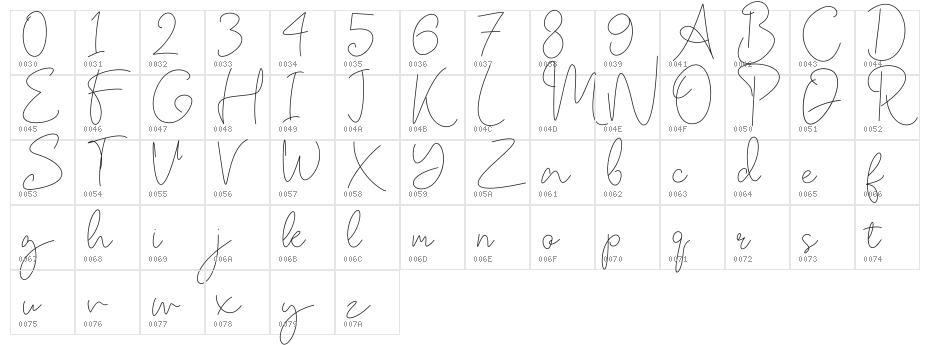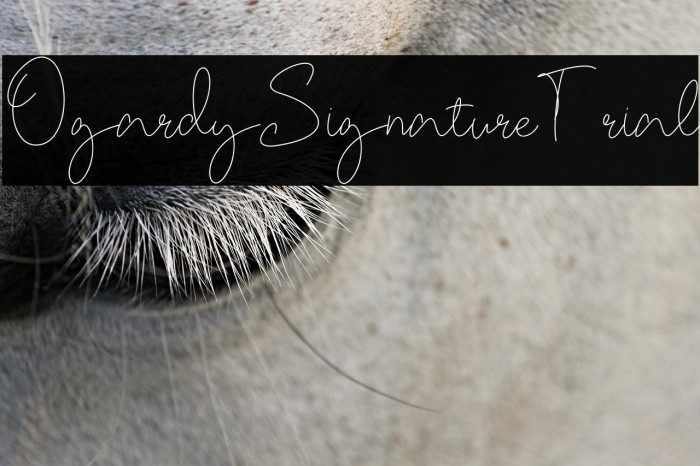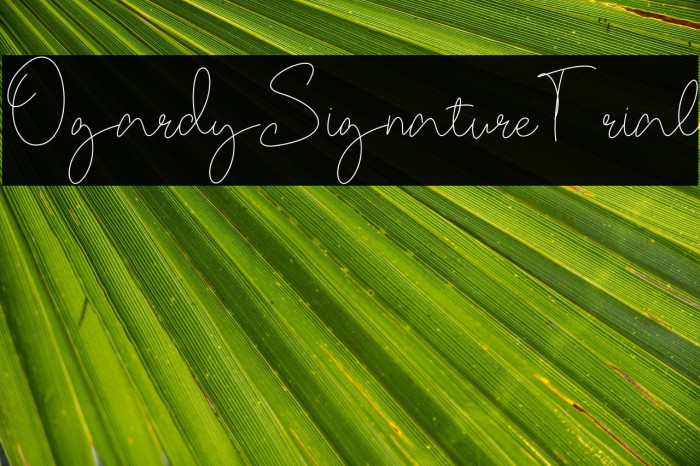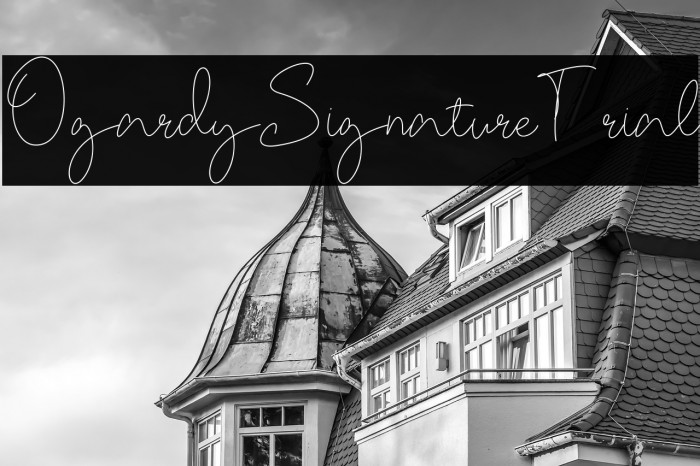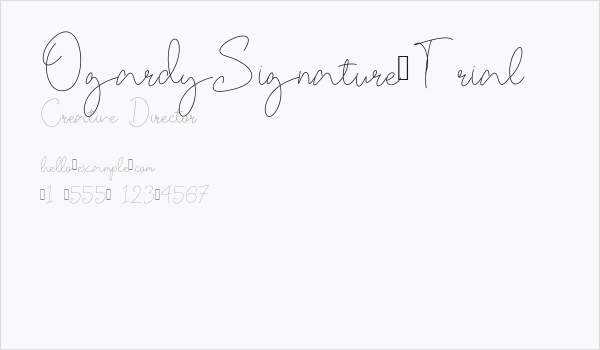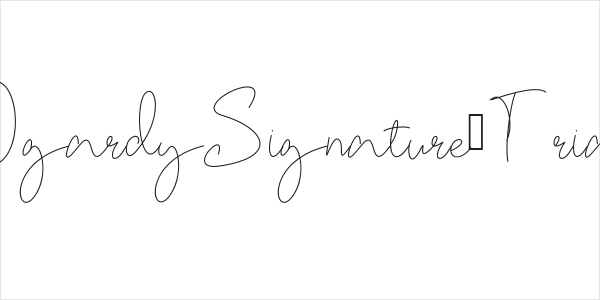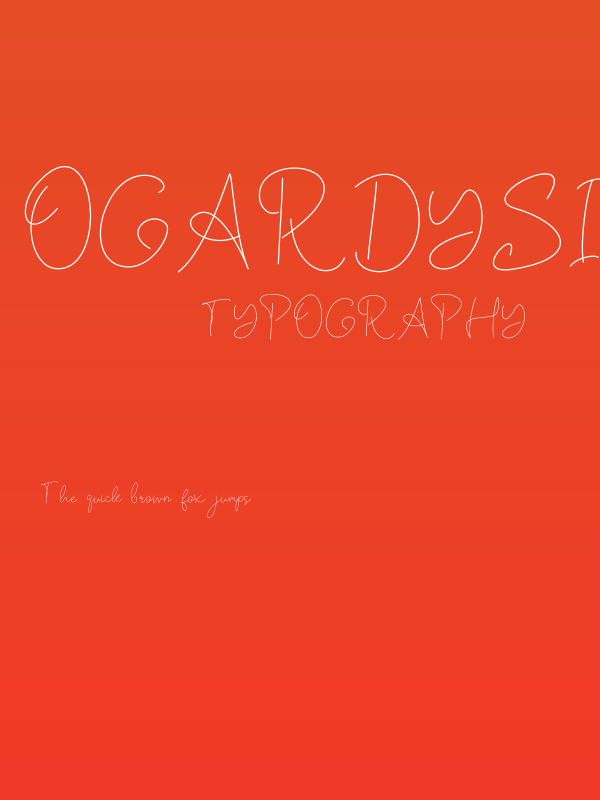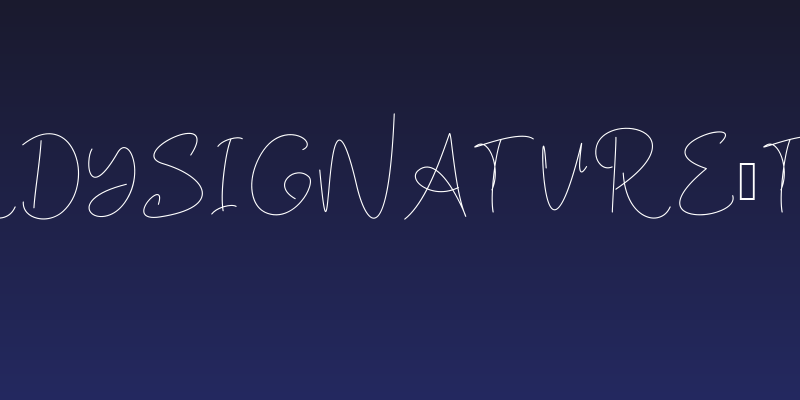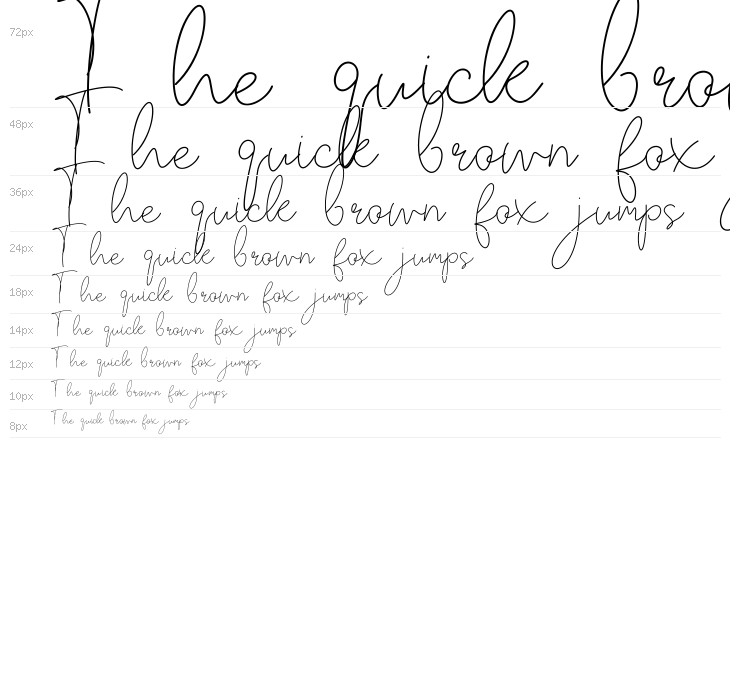
OgardySignature-Trial Font
OgardySignature-Trial Description
This font features an elegant and flowing script style, reminiscent of a personal signature. The uppercase letters are tall and slender, with a slight slant that adds a dynamic feel. The lowercase letters are more fluid, with graceful loops and curves that enhance the handwritten aesthetic. Numbers are consistent with the overall style, maintaining the same slender and slightly slanted appearance. Special characters are integrated seamlessly, maintaining the font's cohesive look. The overall design is sophisticated and stylish, perfect for adding a personal touch.
| Overall Style | Elegant, Handwritten |
| Proposed Projects | Ideal for wedding invitations, personal branding, logo design, and elegant stationery. |